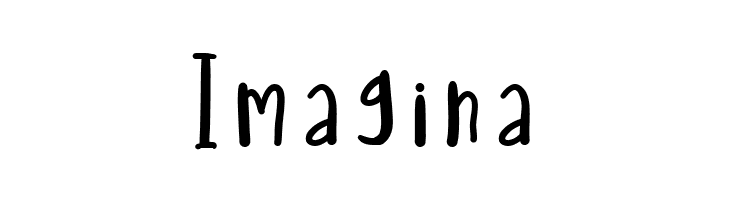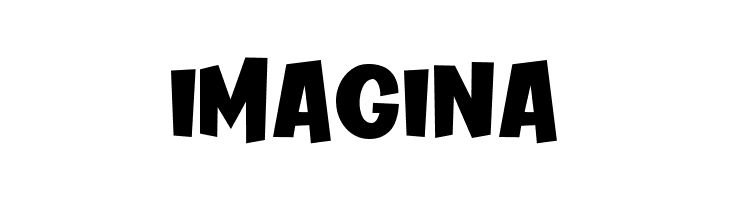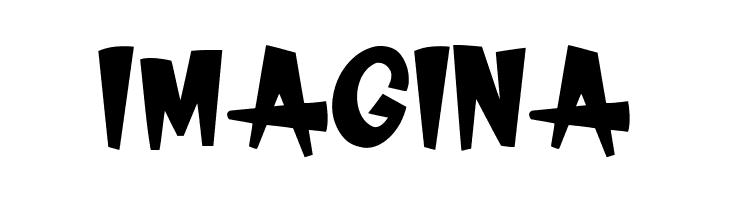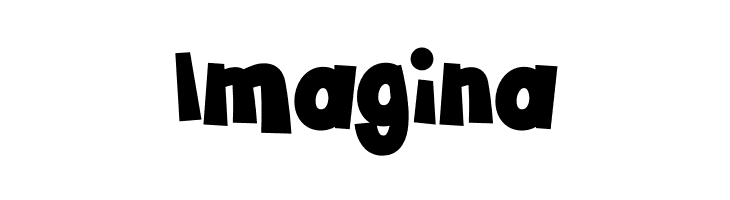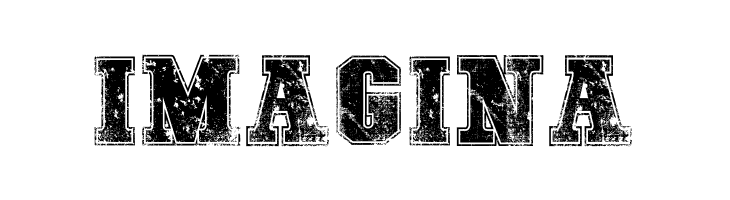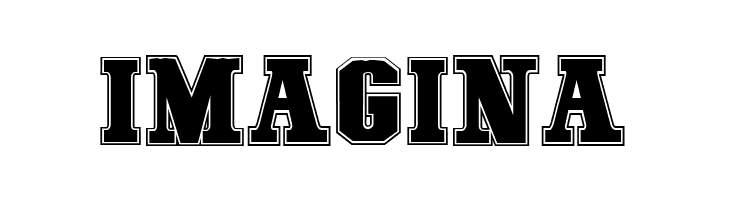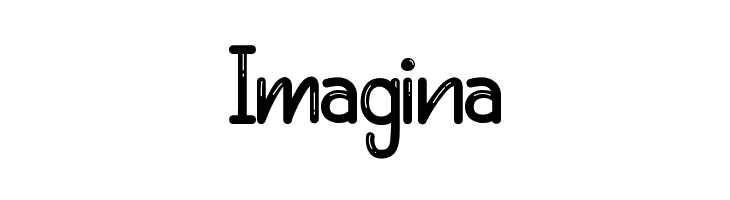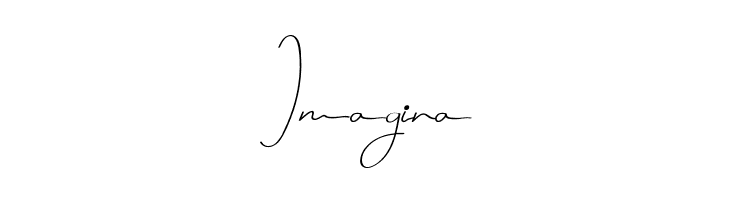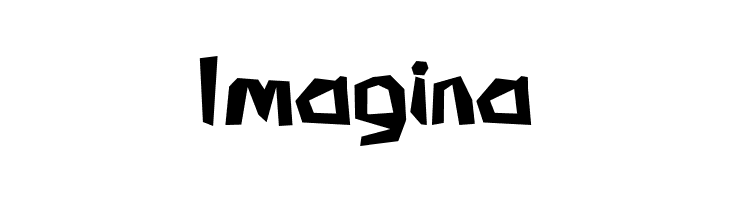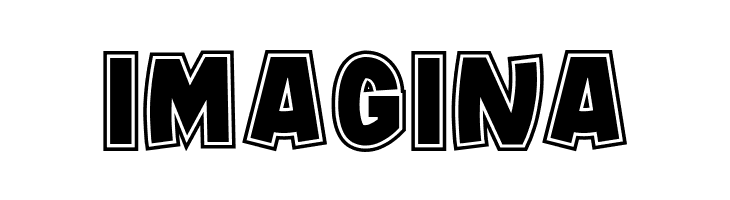
A casual, elegant handwritten font with fluid, connected letters.
A bold, collegiate-style font with a three-dimensional shadow effect.
A bold, distressed font with a vintage collegiate style.
A bold, outlined font with a collegiate and athletic style.
Handwritten cursive script font.
A playful, decorative font with candy-like patterns and bold outlines.
An elegant, flowing script font with artistic, interconnected characters.
A playful, handwritten font with tall, narrow letterforms and a casual style.
Elegant handwritten script font with dynamic strokes.
A bold, geometric font with a modern, digital aesthetic.
A bold, three-dimensional font with a shadow effect, offering a modern and striking appearance.
A bold, outlined font with a playful, three-dimensional effect.
A bold, angular, and edgy font with a hand-crafted appearance.
A playful, bold font with a lively, cartoonish style and hand-drawn feel.
A bold, playful font with thick, rounded strokes and a whimsical style.
A playful, hand-drawn font with bold, rounded letterforms and a whimsical style.
A bold, dynamic font with a modern and playful style.
A bold, playful font with thick, rounded characters and a comic book style.
A playful, bold font with whimsical, hand-drawn letterforms.
A bold, playful font with an outline effect, ideal for comic or fun projects.
A bold, comic-inspired font with jagged, dynamic letterforms.
A bold, comic-inspired font with a shadow effect for a dynamic, playful look.
A bold, playful font with cartoon-like characters and a dynamic, energetic style.
A bold, hand-drawn font with a playful, comic-like style.
A bold, italicized handwritten font with a playful and dynamic style.
A bold, italicized, and playful handwritten font.
Playful and bold cartoon-style font.
Bold, playful font with 3D extruded effect.
A bold, playful font with a comic-style, hand-drawn appearance.
A bold, playful outline font with a comic, stone-like appearance.
A bold, playful font with a comic book style and hand-drawn feel.
A playful, bold font with rounded characters and a cartoonish style.